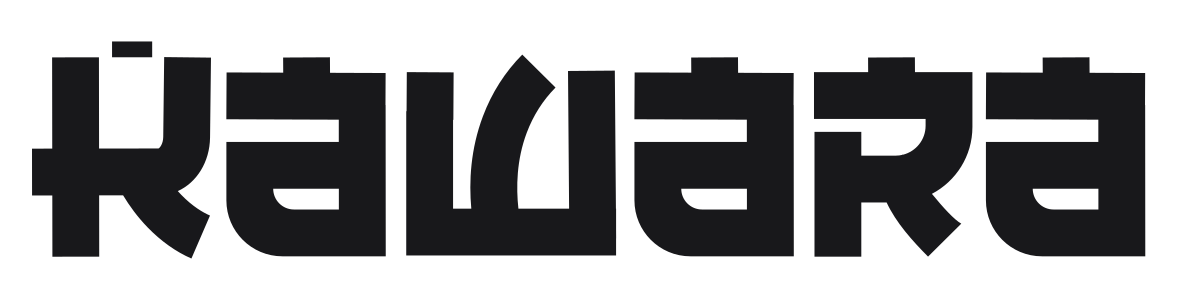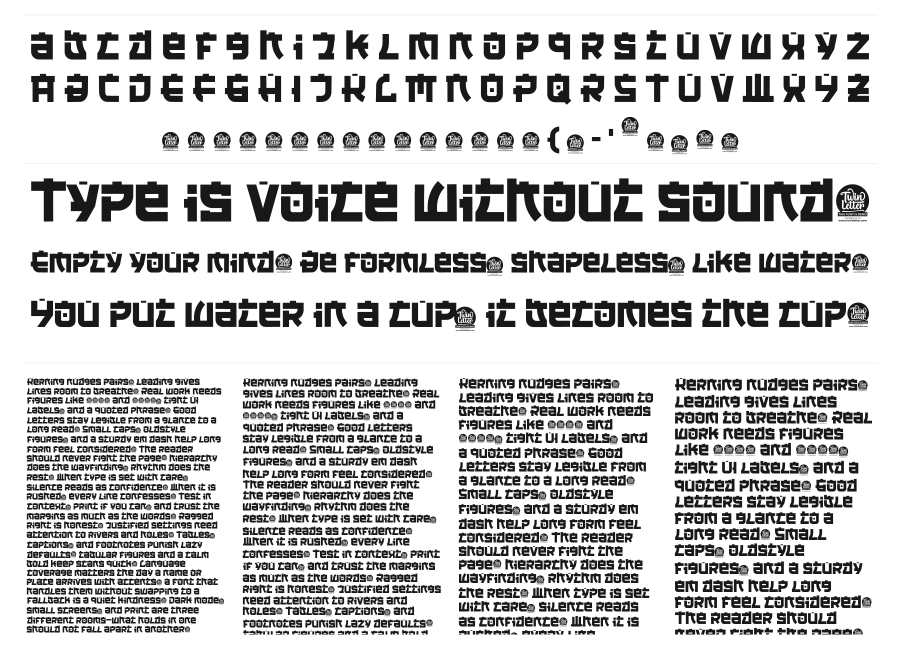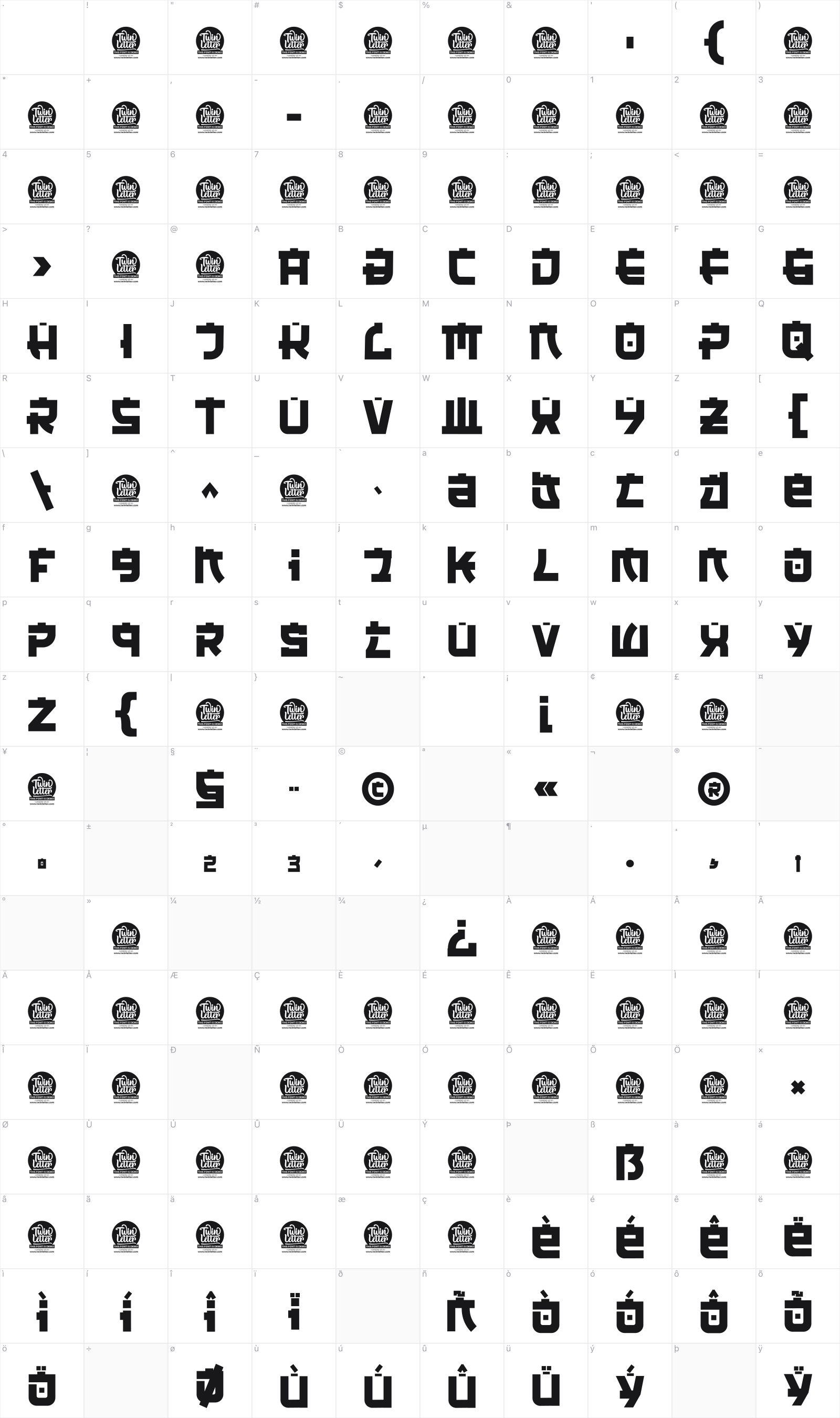
Kawara
Kawara is a heavy modular display font built from interlocking rectangular blocks with small square notches carved into the strokes. The grid-based construction gives it a distinctly pixelated, almost brutalist character that sits somewhere between a techno typeface and pixel art. It hits hard at large sizes and carries strong associations with gaming, streetwear, and urban culture.